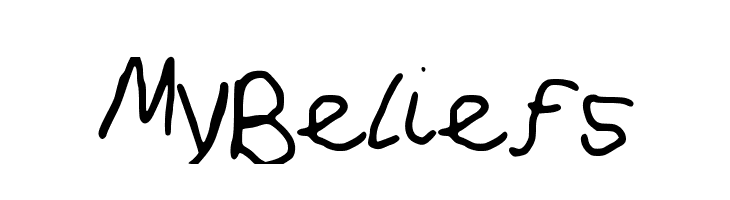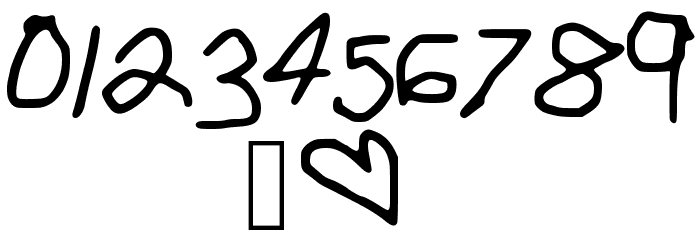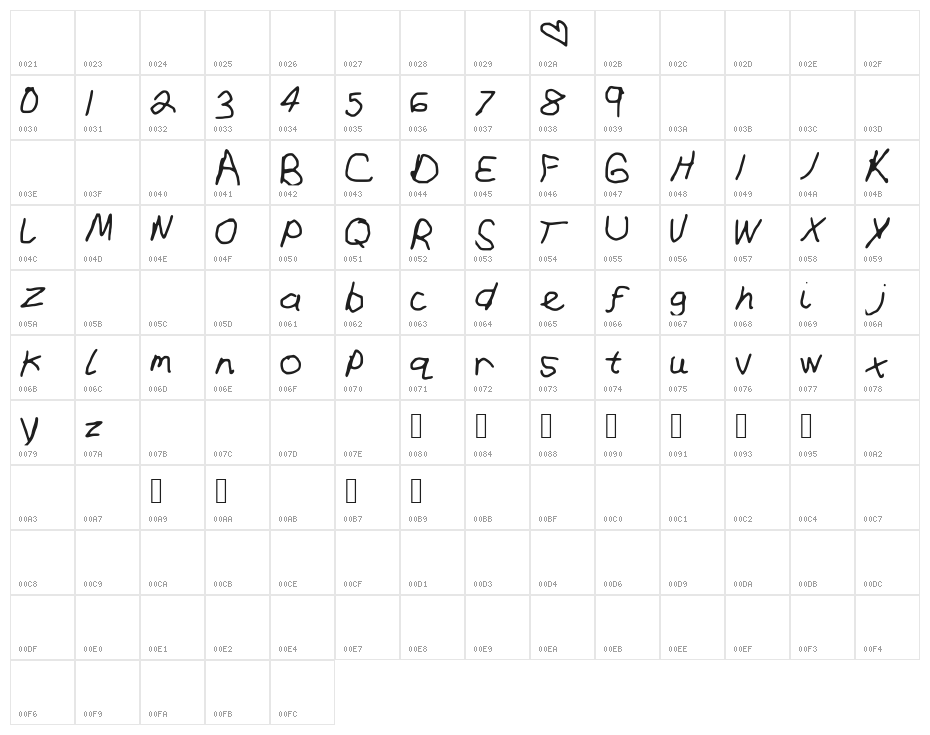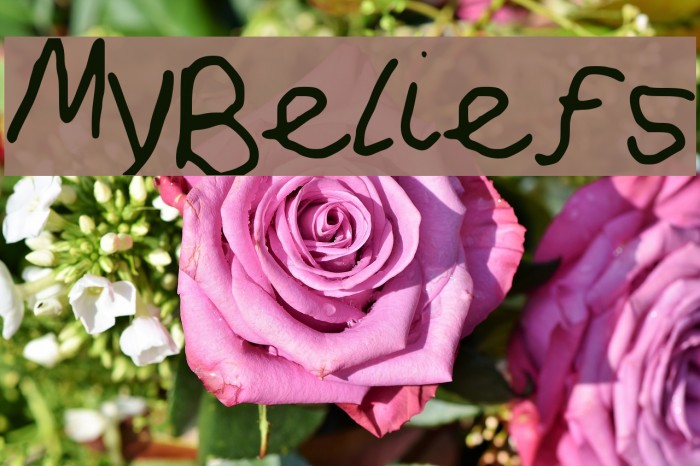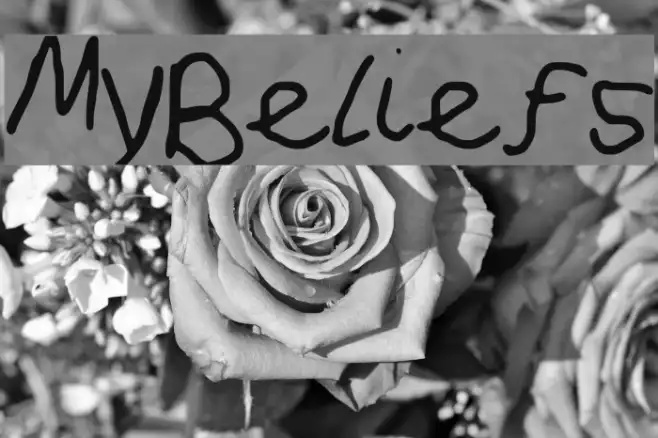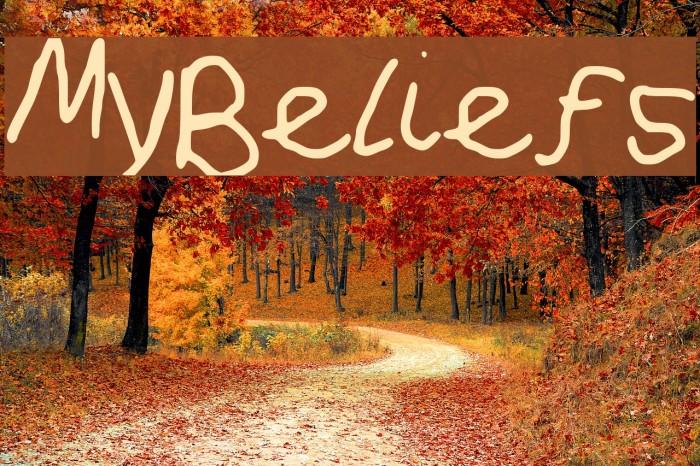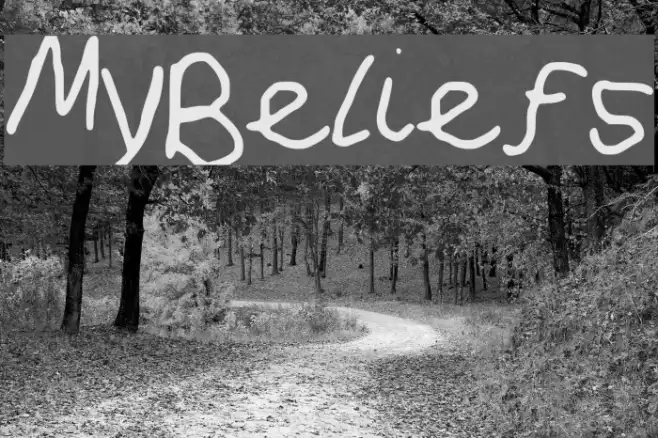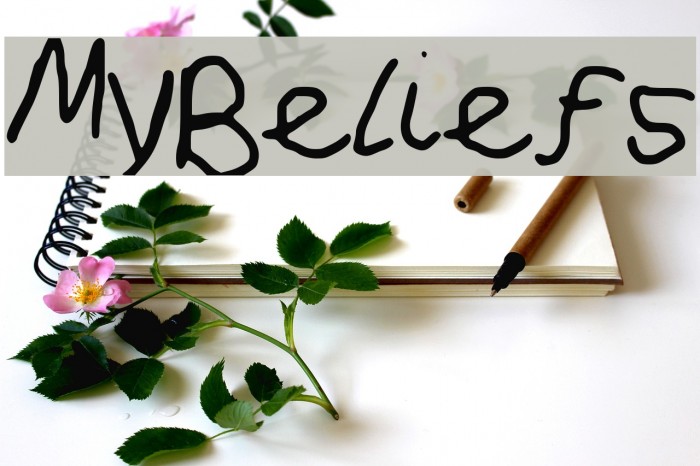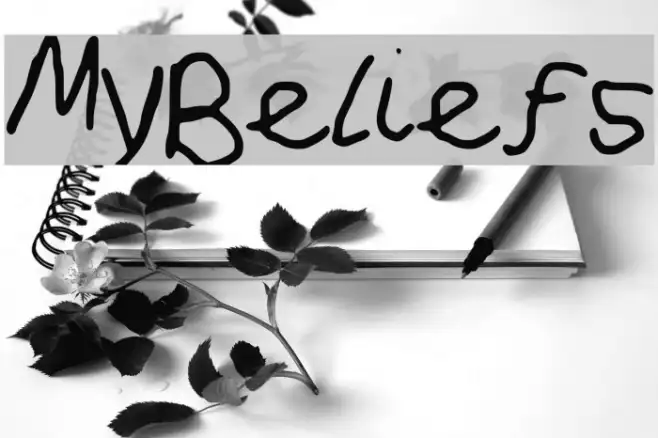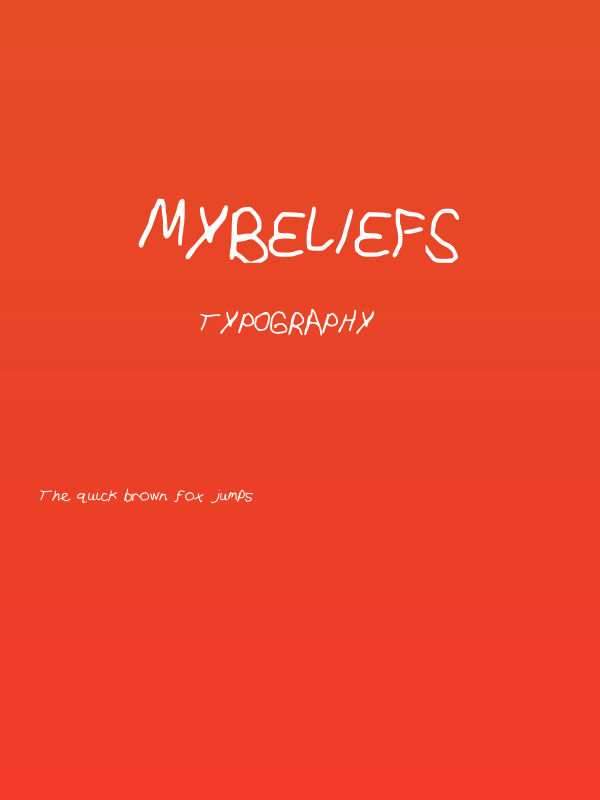
MyBeliefs Font
MyBeliefs Description
This font features a playful and casual handwritten style, characterized by its irregular and organic letterforms. The strokes are uneven, giving it a personal and informal feel, reminiscent of a quick sketch or doodle. The uppercase and lowercase letters maintain a consistent style, with a slightly exaggerated curvature in some characters, adding to its whimsical nature. The numbers follow the same playful aesthetic, ensuring uniformity across the font. The special characters, including a heart symbol, enhance its friendly and approachable vibe, making it ideal for creative and informal projects.
| Use Case | Creative projects, Informal communications |
| Proposed Projects | Ideal for greeting cards, children's books, personal blogs, and creative branding projects. |